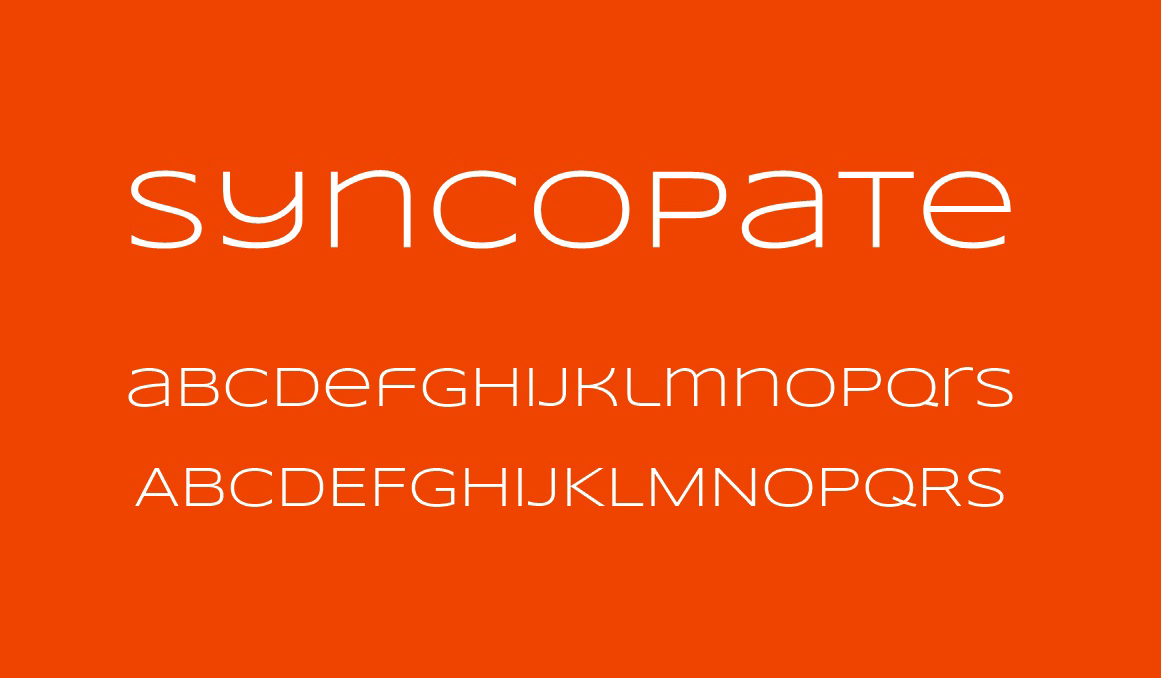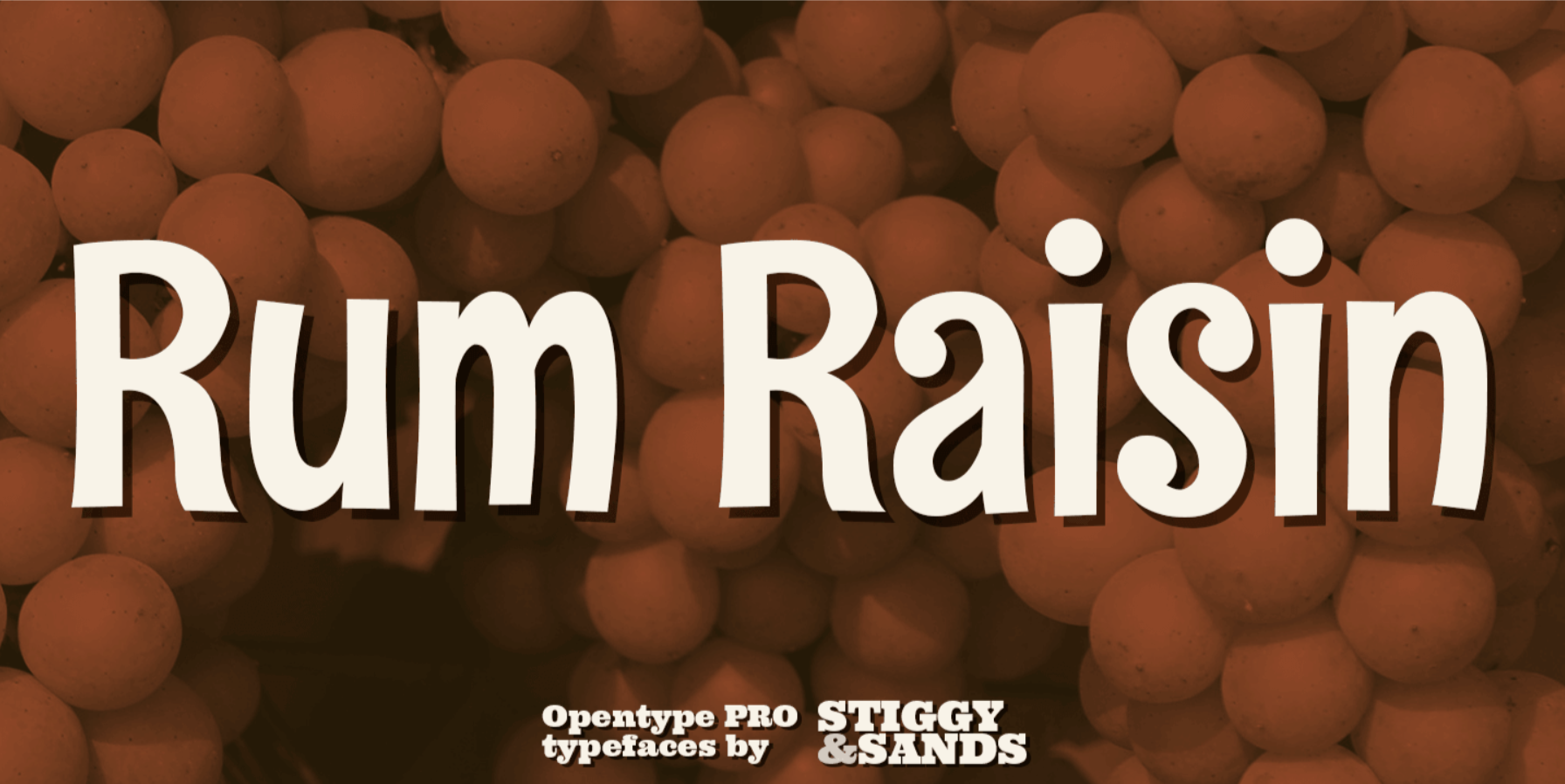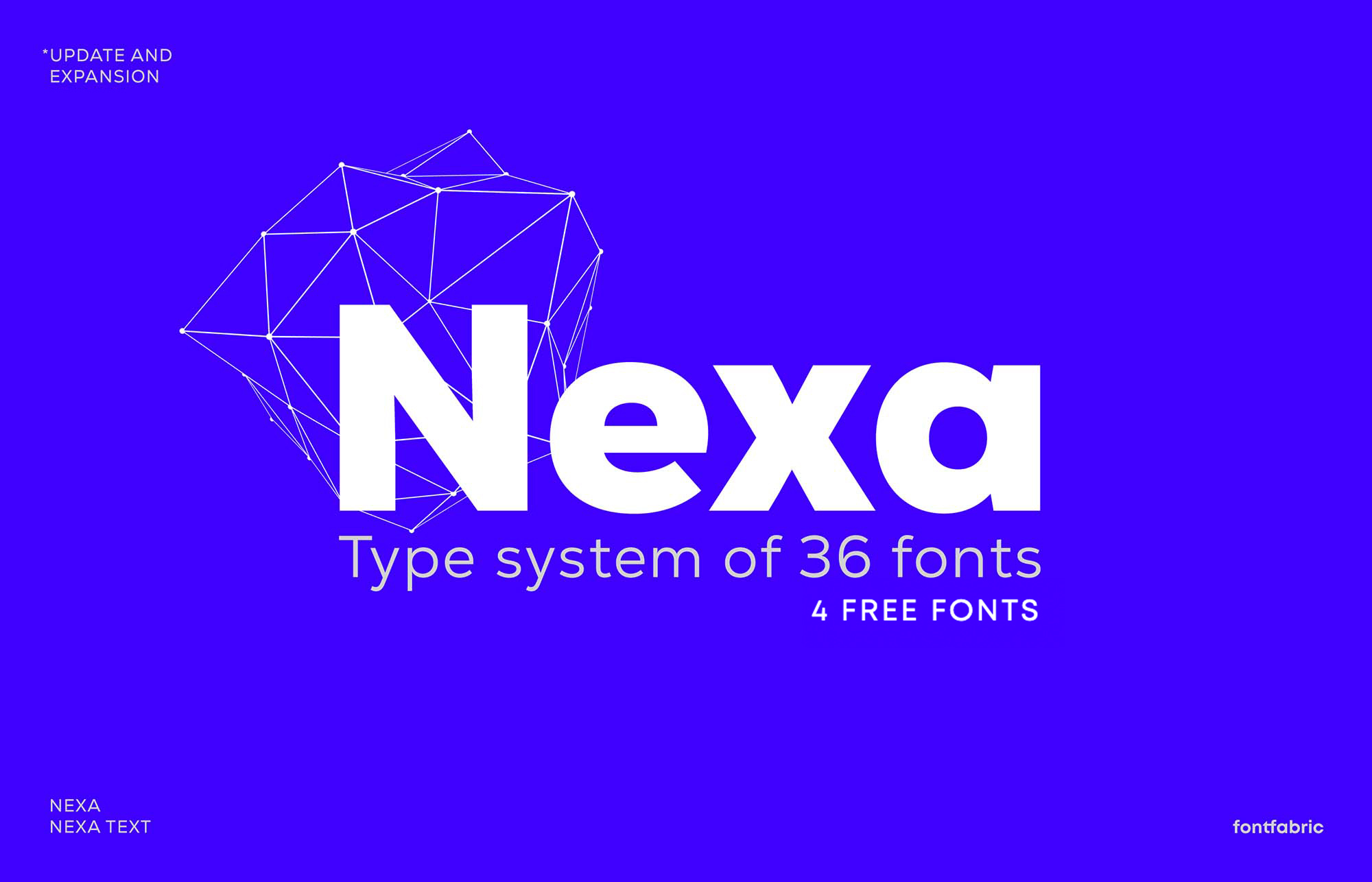
Top 5 Free Logo Fonts for 2023!
When it comes to establishing a strong brand identity, the power of typography cannot be underestimated. Check out these Awesome Free Logo Fonts for 2023
When it comes to establishing a strong brand identity, the power of typography cannot be underestimated. Choosing the Right Fonts is super important for your logo design and overall brand vibe. But let's face it, some fonts can be crazy expensive, and that's tough for a startup. No worries though, there are loads of cool fonts that are totally free for commercial use.
Check out these awesome free commercial fonts for 2023!
Free logo font #1: LOT Font
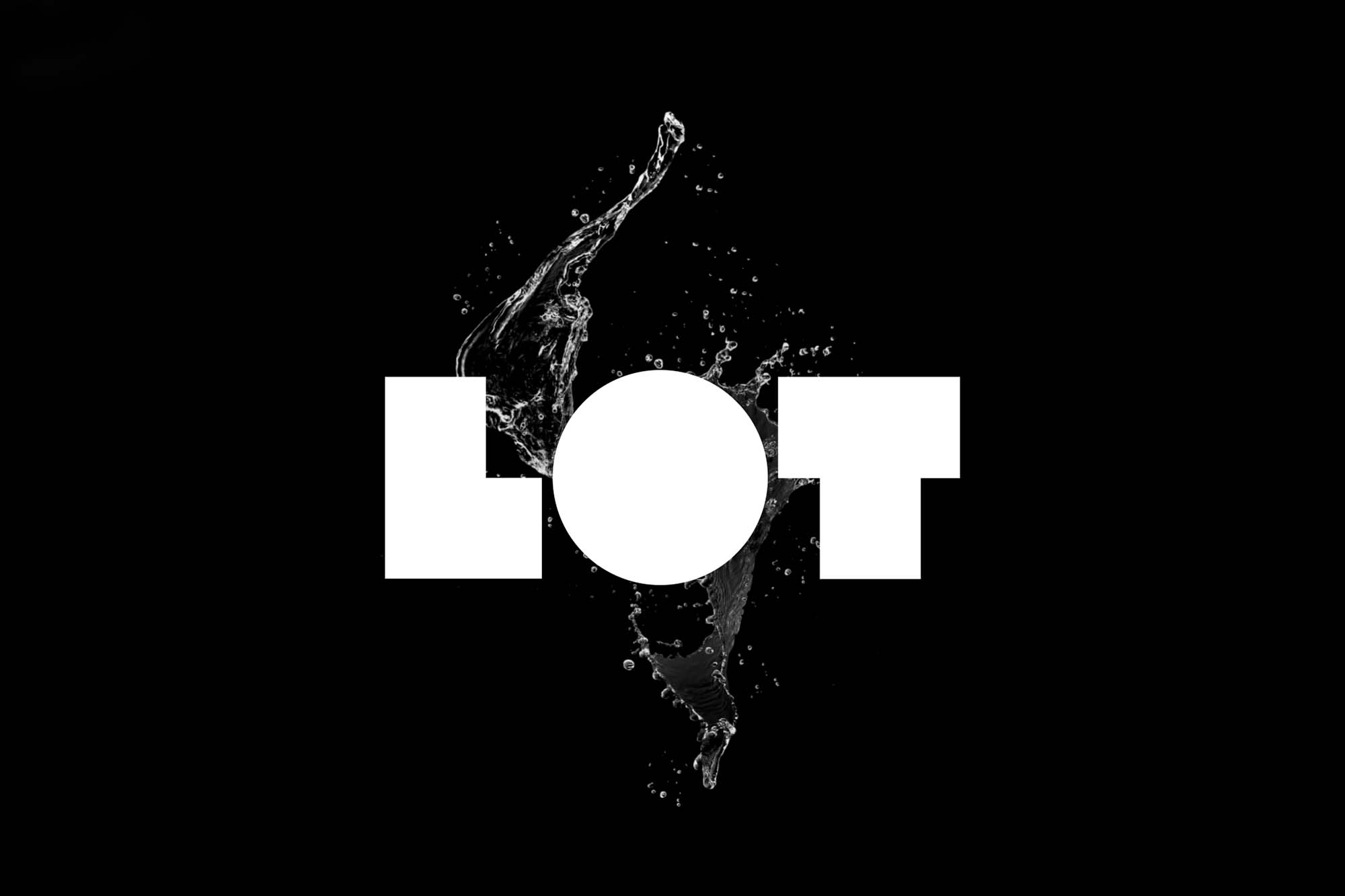
LOT Font is modern, bold and blocky. It includes an impressive set of uppercase letters and numbers that immediately stand out with their bold designs. It's a very loud font that works well for creating attention-grabbing text logos.
When it comes to grabbing your audience’s attention, nothing beats block fonts. If you want to make sure your brand can’t be missed, Lot’s got you covered.
Free logo font #2: Nexa Font
Nexa font is a modern sans serif font family. The complete Nexa font collection comprises 9 weights and 36 fonts. However, you can only download 4 Nexa fonts for free, including Nexa Bold Font, Nexa Light Font, Nexa Text Bold, and Nexa Text Light.
These fonts have a clean and sleek appearance, making them highly versatile and flexible in design. Their wide range of applications allows for various uses, making them an excellent choice for those company seeking to achieve a modern logo look.
Free logo font #3: Syncopate Font
Introducing Syncopate Font - a sleek, modern typeface designed for versatility and readability. This contemporary font is perfect for headlines, branding, and digital projects, adding a touch of sophistication to any design. If you're looking to elevate your branding with a sophisticated touch, Syncopate Font is the perfect choice.
Free logo font #4: RumRaisin Font
RumRaisin Font is a cute and playful typeface that features a Sans-serif design. With its playful letters RumRaisin is perfect for designing pets shop logos and cute kids logos. The font's uneven and marker-like appearance lends a fun and informal feel to any brand.
If you're looking to add a playful and lighthearted touch to your brand or logo, RumRaisin Free Font is an excellent choice. With its informal and quirky style, RumRaisin can help you create a fun and memorable visual identity.
Free logo font #5: Ubuntu Font
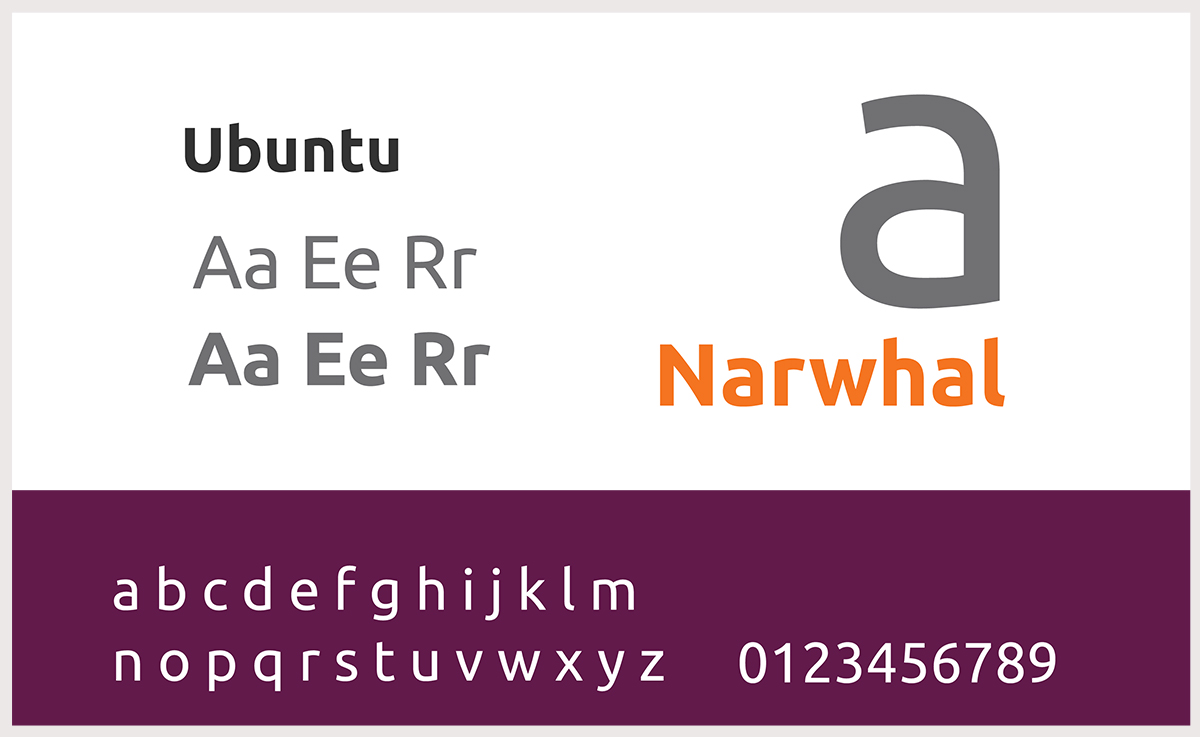
Ubuntu Font is a sans-serif font family, designed to be a modern, humanist-style typeface. This versatile font is perfect for web, print, and graphic design projects, bringing a touch of human touch and openness to any creative work.
This versatile font is perfect for web, print, and graphic design projects, bringing a touch of human touch and openness to any creative work.